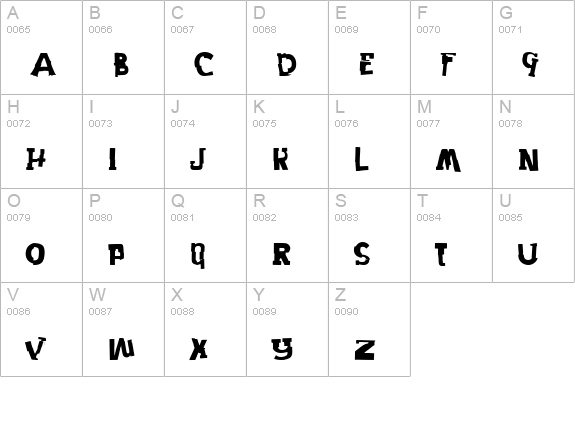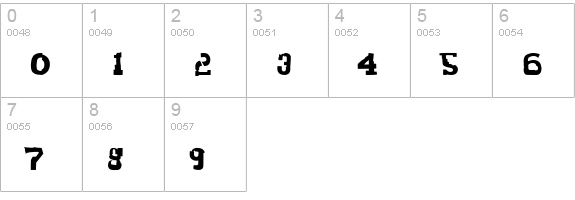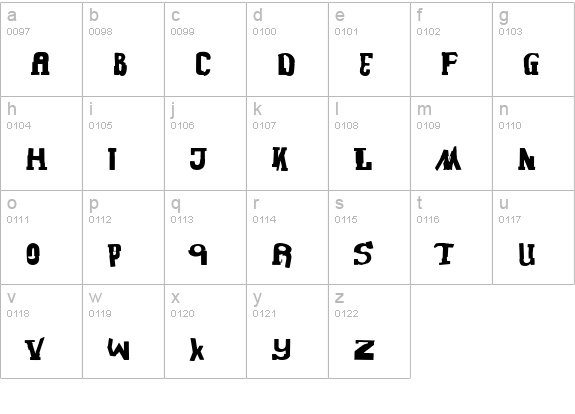
PiratesBlackbeard Font Details
Introducing PiratesBlackbeard, a captivating and adventurous font that will transport you to the thrilling world of pirates and seafaring tales. This one-of-a-kind typeface is designed to embody the spirit of the infamous pirate Blackbeard, with its bold and rugged letterforms that exude a sense of danger and mystery. PiratesBlackbeard is the perfect choice for any project that seeks to ignite the imagination and evoke a sense of adventure. Whether you are designing a poster for a pirate-themed event, creating a logo for a maritime business, or simply adding a touch of swashbuckling charm to your personal projects, this font is sure to make a lasting impression. What sets PiratesBlackbeard apart is not only its striking design, but also the fact that it is absolutely free. That's right, you can download this remarkable font at no cost from FontsMarket.com. We believe that creativity should be accessible to all, and by offering PiratesBlackbeard for free, we hope to inspire and empower designers, writers, and enthusiasts alike to bring their visions to life, without any financial barriers. With its versatile uppercase and lowercase characters, numerals, and punctuation marks, PiratesBlackbeard offers endless possibilities for customization and creativity. Its unique and distinctive style ensures that your designs will stand out from the crowd, capturing the attention and imagination of viewers. So, set sail on a typographic adventure with PiratesBlackbeard. Download it for free at FontsMarket.com and unleash your inner pirate. Embrace the spirit of Blackbeard and let your designs command attention and captivate audiences like never before.